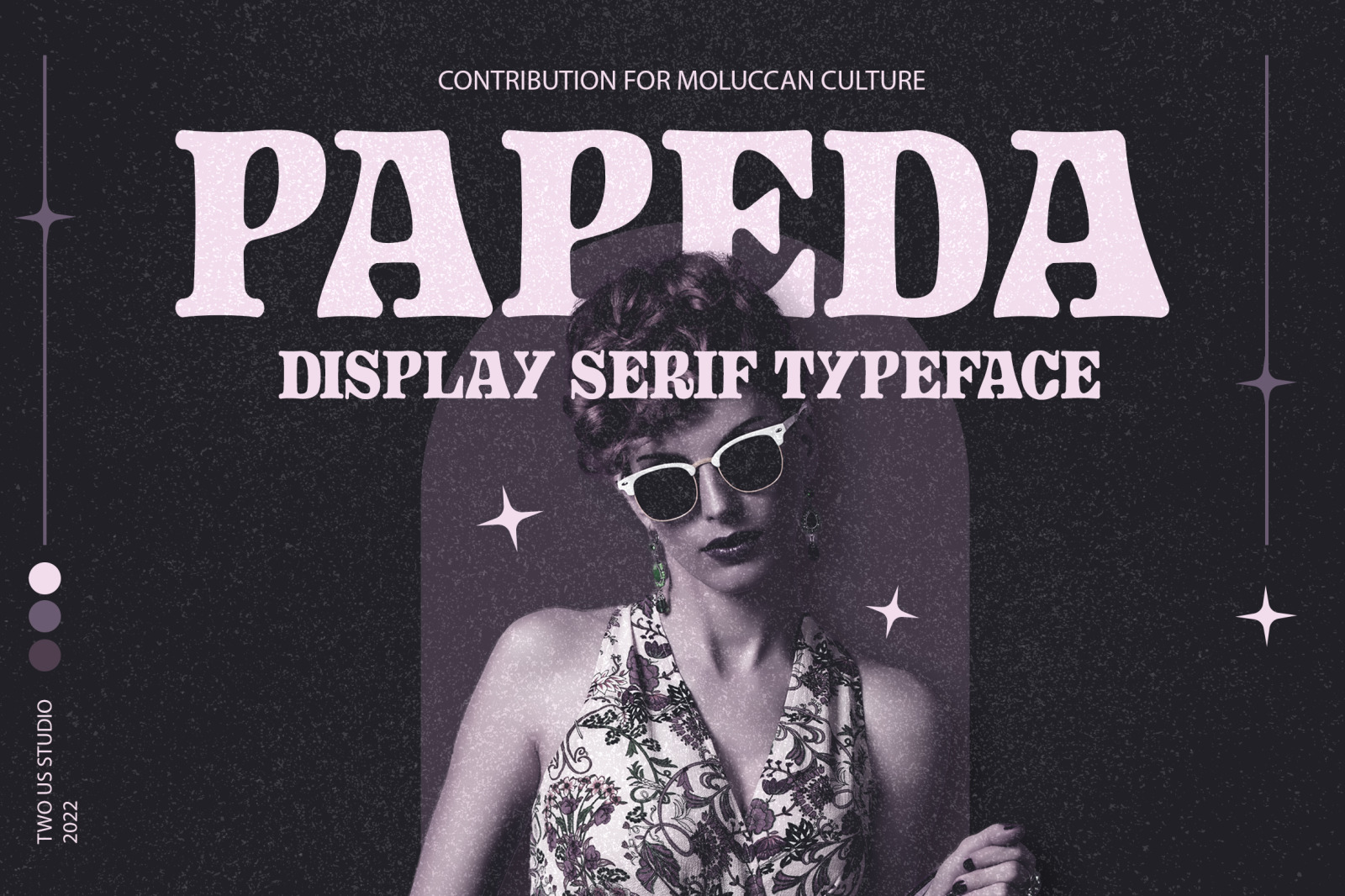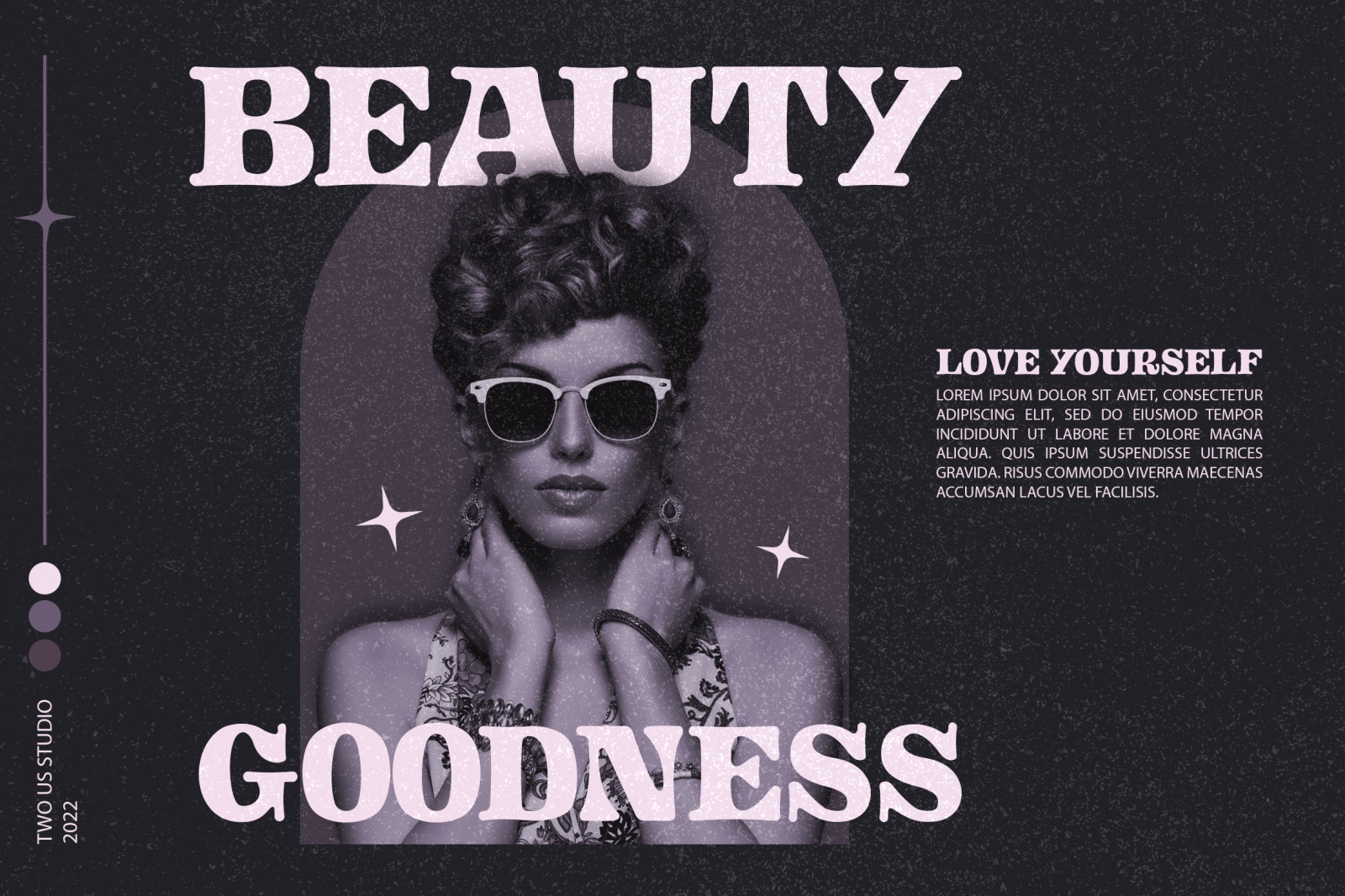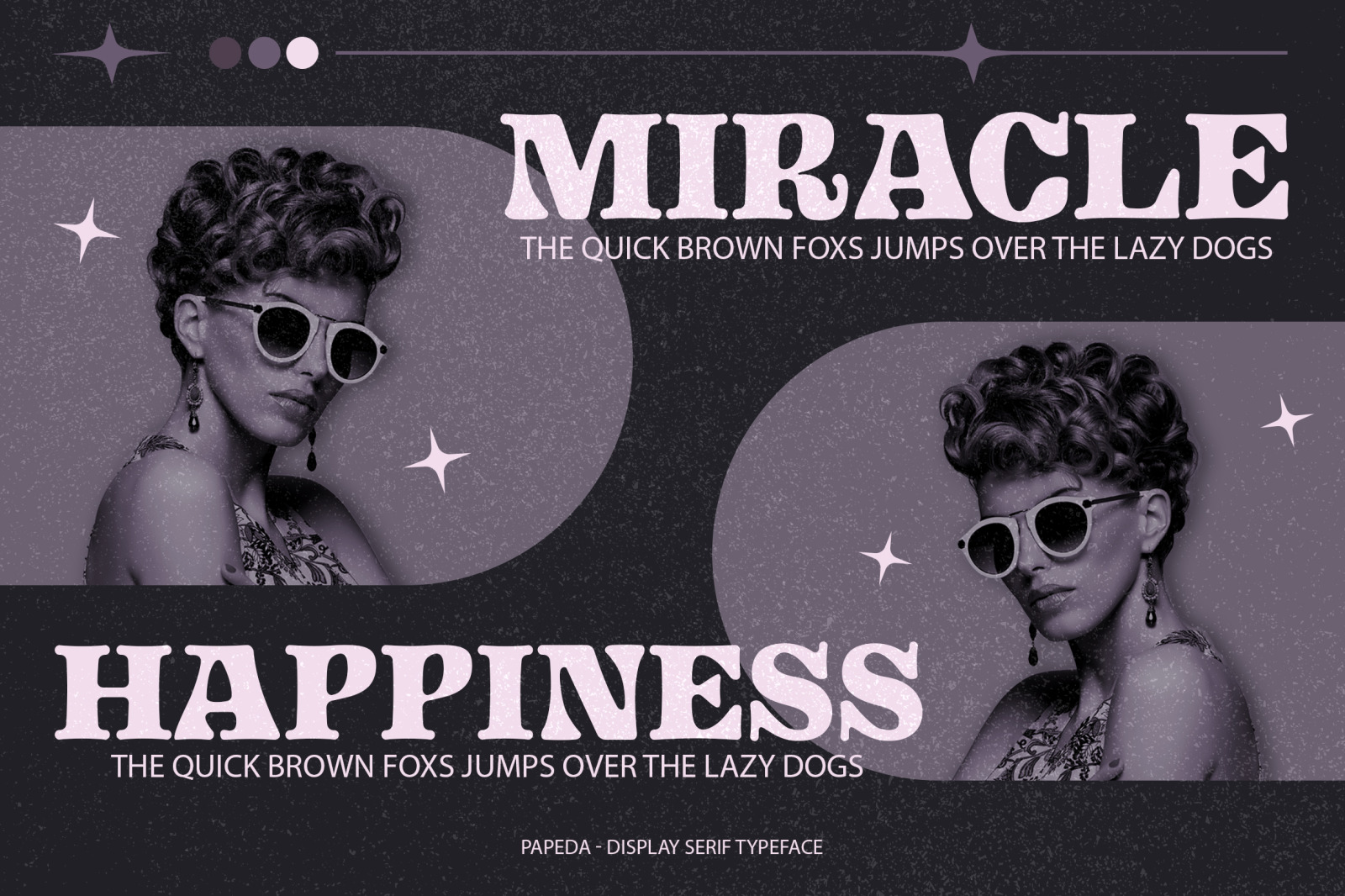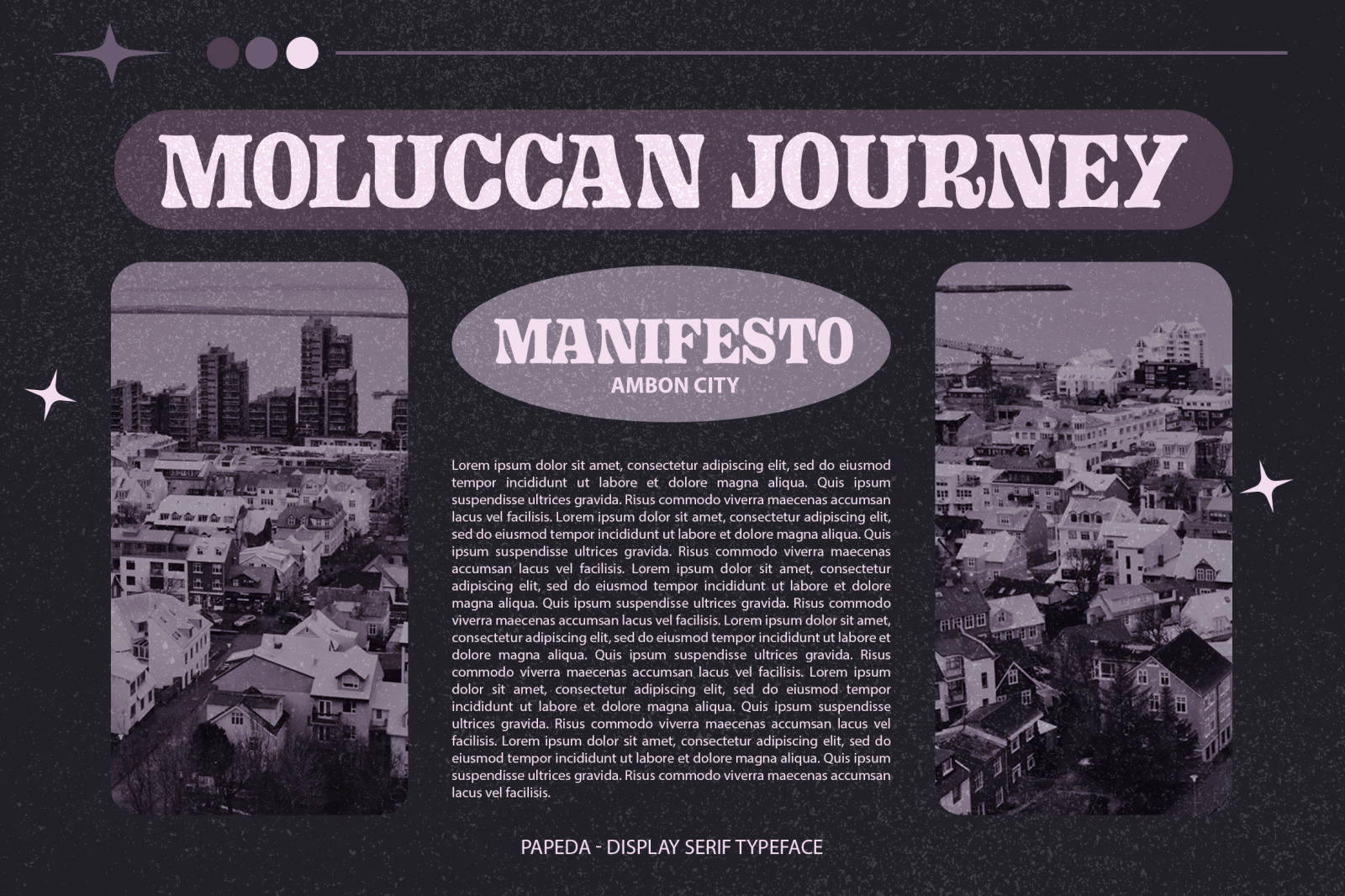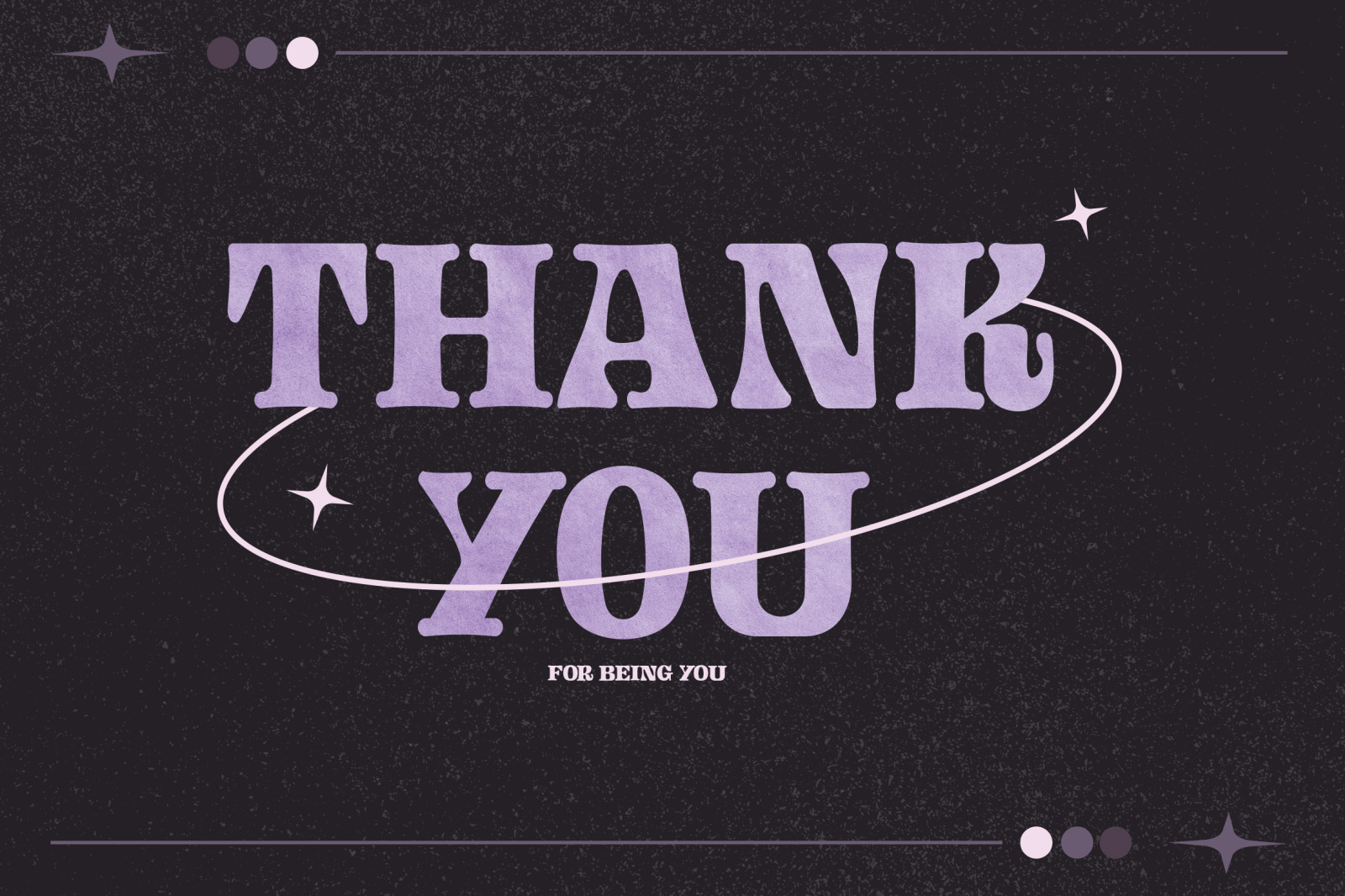
Papeda - Serif Display Typeface
Papeda is a cool and bold serif font. Add it confidently to your favorite creations and let yourself be amazed by the outcome generated.